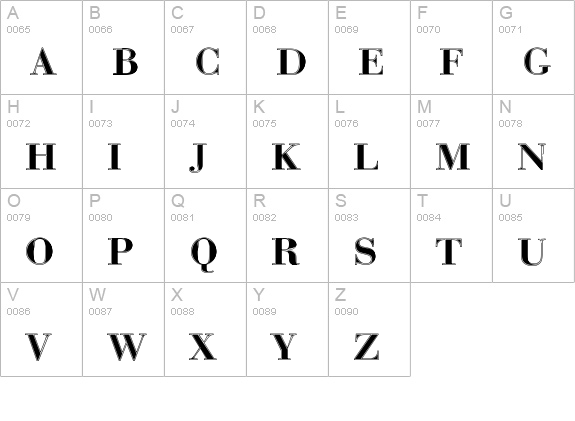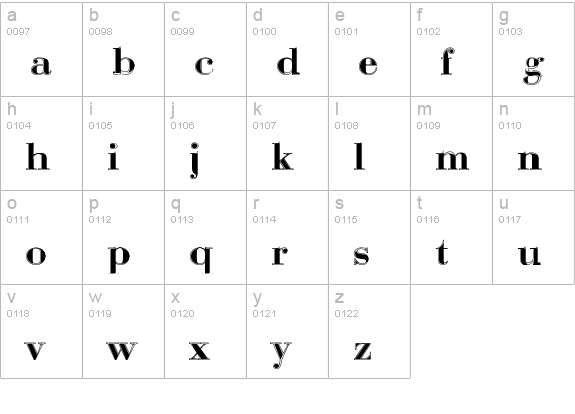
Bauer Bodoni D Demi Bold In1 is a sub-bold, structured variant in the Bauer typeface family \xE2\x80\x94 well suited to sub-headlines and emphasised passages.
Bauer Bodoni D Demi Bold In1 font is a sophisticated and elegant typeface that exudes timeless charm and modern sophistication. With its strong and bold design, this font is perfect for making a statement in any design project. The classic serifs and clean lines of Bauer Bodoni D Demi Bold In1 font add a touch of refinement and professionalism to any text. And the best part? Bauer Bodoni D Demi Bold In1 font is completely free to download at FontsMarket.com. Whether you're working on a branding project, a poster design, or a website layout, this font is sure to elevate your work and make a lasting impression. Download Bauer Bodoni D Demi Bold In1 font today and add a touch of elegance to your designs.